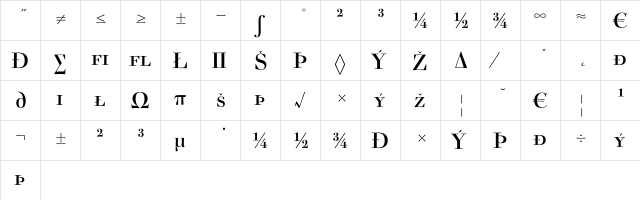
Acanthus SmallCapsExpert
Design Context for Acanthus Typeface
Acanthus takes a measured approach to typography — its balanced proportions and neutral character make it a reliable workhorse for both digital and print work.